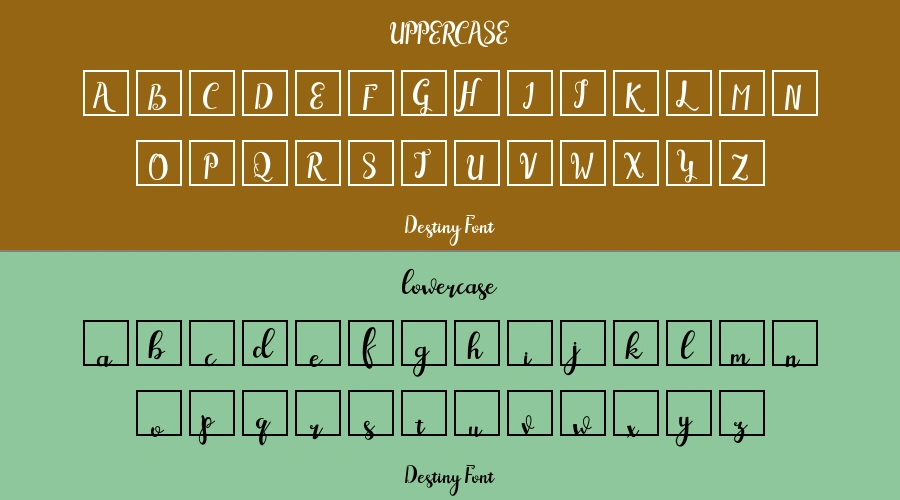
About Destiny Font
Destiny Font embodies typographic excellence through its masterful combination of decorative alternates and expressiveness. Created for financial reports, this typeface delivers exceptional consistency and brand alignment across all applications. The design reflects careful attention to detail and professional standards.
Advanced capabilities include distinctive precise alignment and versatile titling alternates, giving designers creative control. When used in packaging, Destiny Font exhibits remarkable microfilm readability. The harmonious balance between loop structure and professional recognition sets this typeface apart.